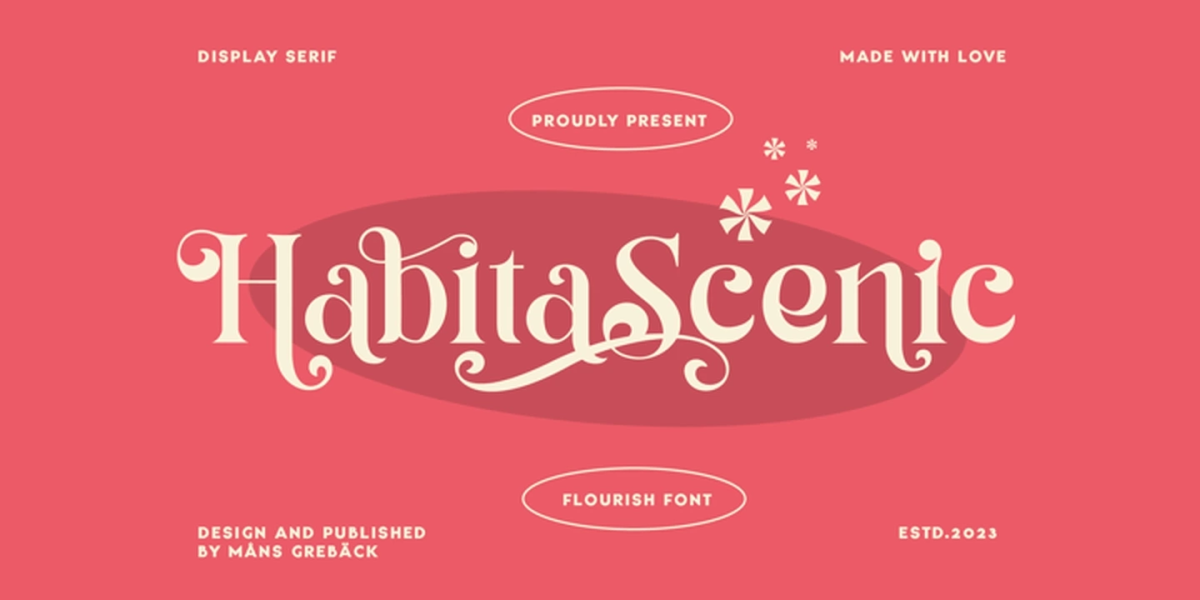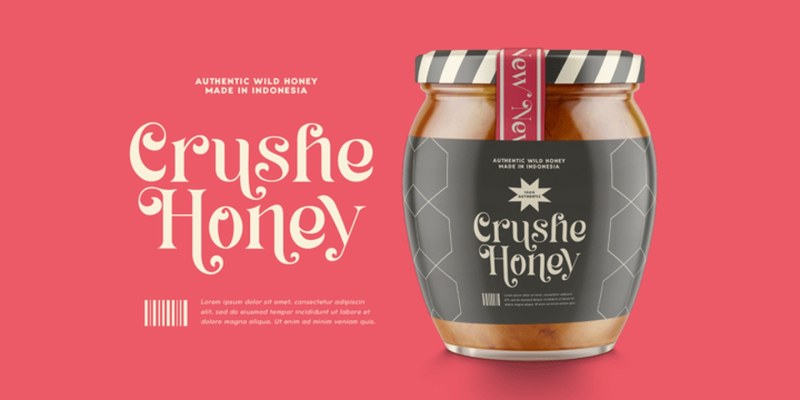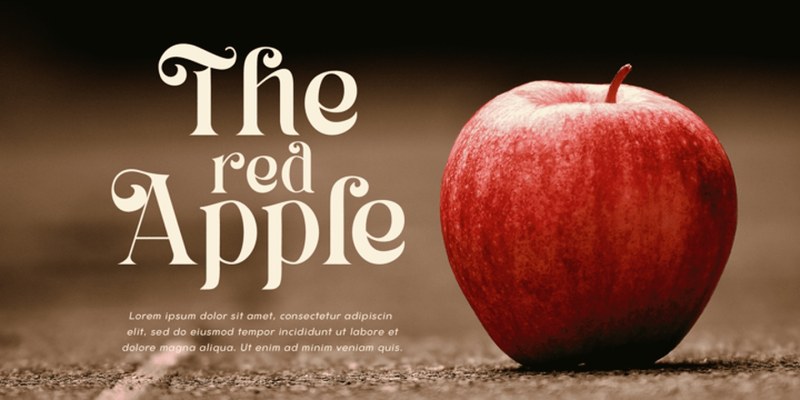
Habita Scenic Font Family
Habita Scenic is the heavy and beautiful serif font that adds a touch of femininity and class to any project. Designed by Mans Greback in 2023, this font features high contrast and retro style, making it the perfect choice for designers looking to add a touch of cool to their work. With its beautiful swash letters, Habita Scenic is perfect for logos, headlines, and other creative projects.
This font’s classic and elegant design makes it an ideal choice for high-end brands and premium products. If you’re looking for a font that exudes sophistication and timeless style, look no further than Habita Scenic.
The Habita Scenic family consists of four high-quality fonts: Regular, Italic, Bold and Bold Italic.
The font is built with advanced OpenType functionality and has a guaranteed top-notch quality, containing stylistic and contextual alternates, ligatures and more features; all to give you full control and customizability.
It has extensive lingual support, covering all Latin-based languages, from Northern Europe to South Africa, from America to South-East Asia.
It contains all characters and symbols you’ll ever need, including all punctuation and numbers.
Habita Scenic Font Family is a Serif Fonts font that brings a professional and versatile look to your projects. Habita Scenic is the heavy and beautiful serif font that adds a touch of femininity and class to any project.